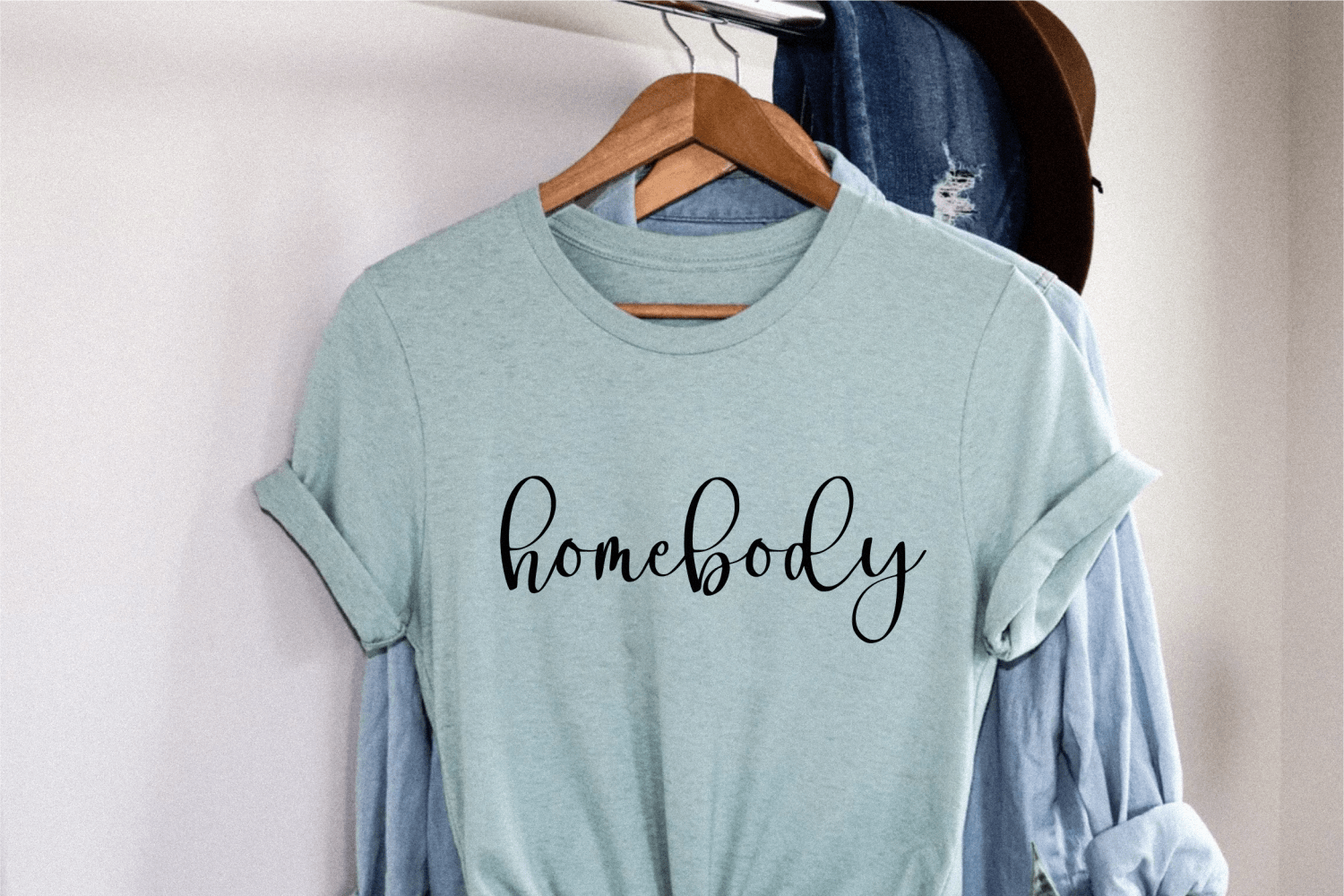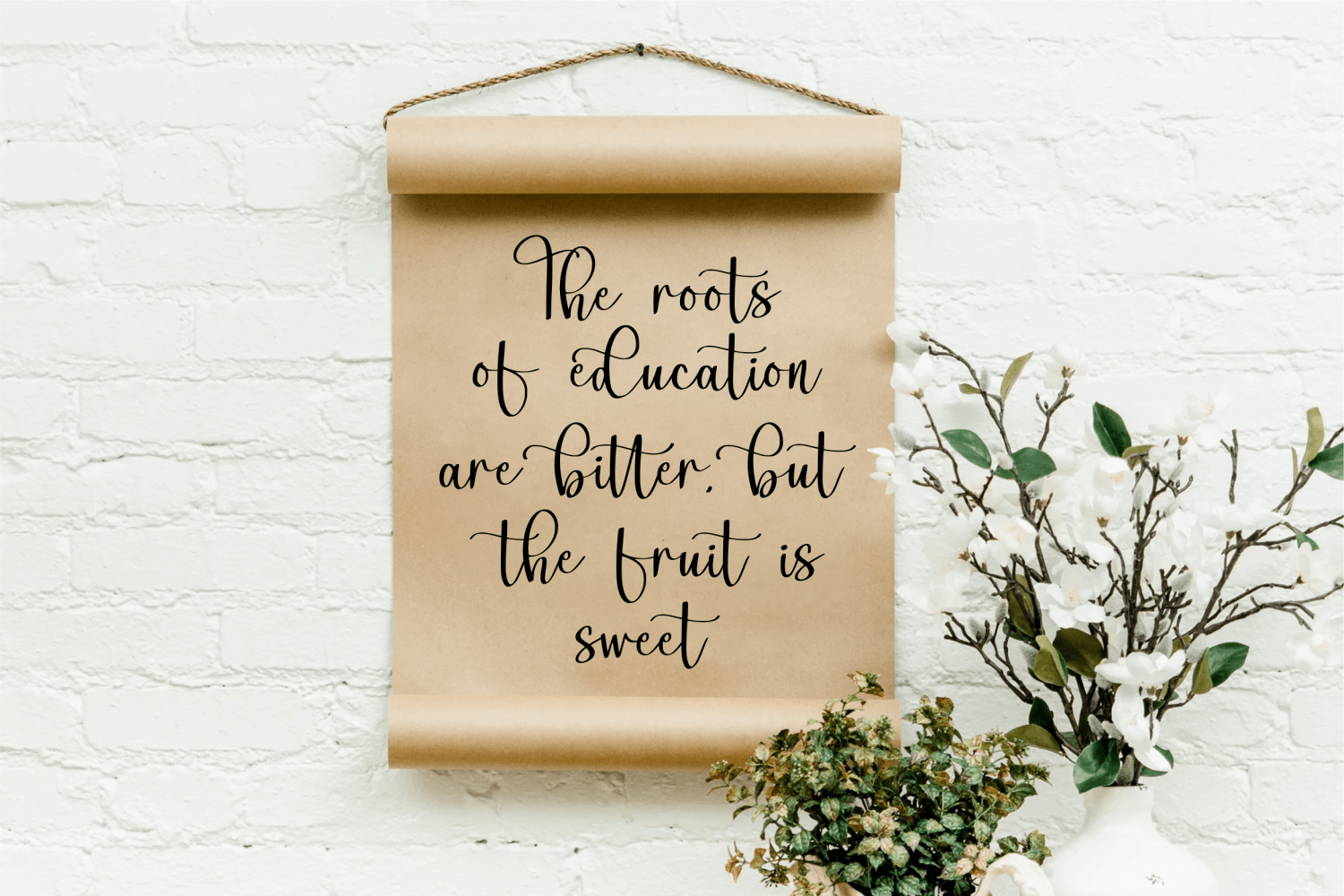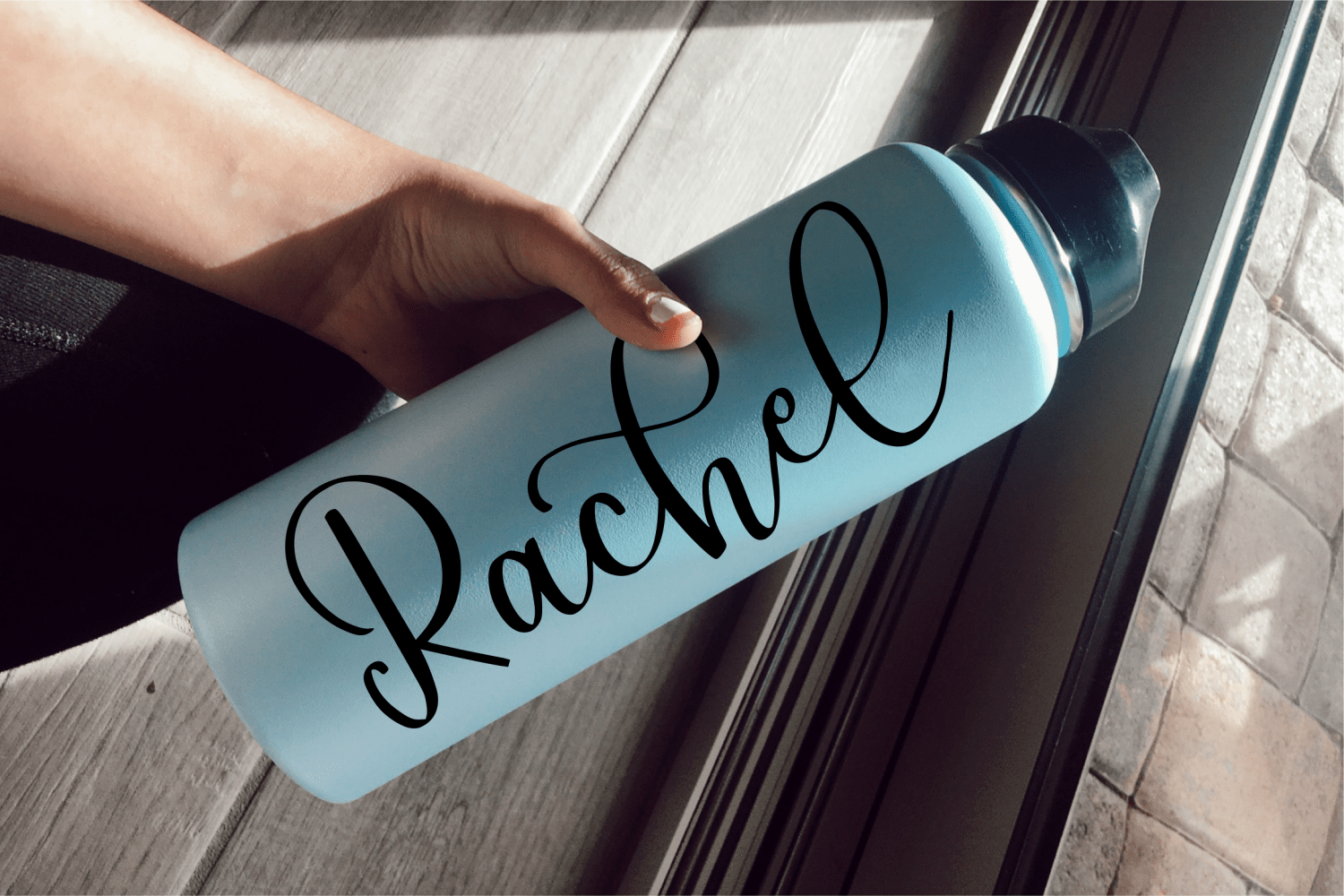
Abigailside Font
Abigailside Script Font
This is a cute swash calligraphy font with smooth curves. It has a wonderful dancing baseline and tons of character. Use it for invitations, greeting cards, promotional materials, websites, and branding that needs an elegant and natural style.